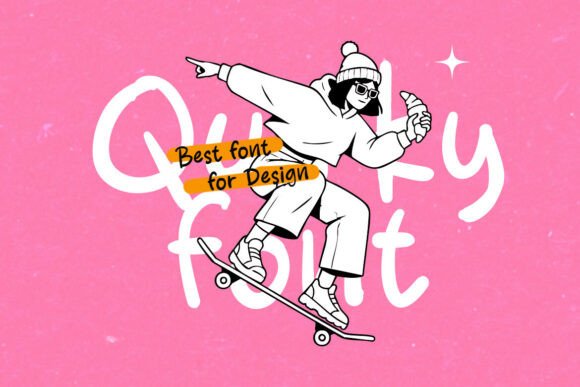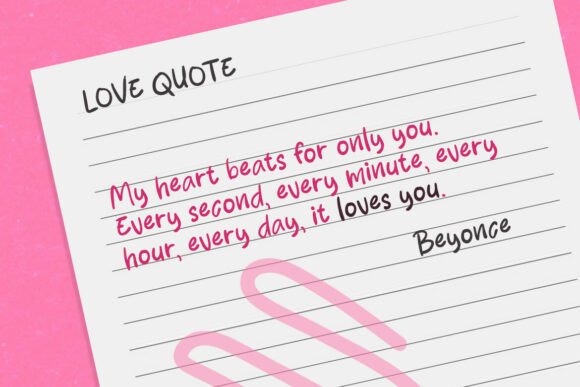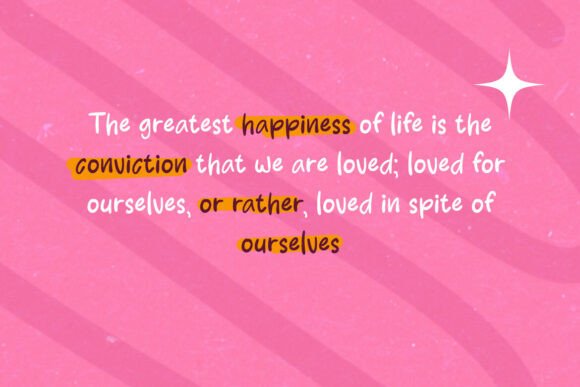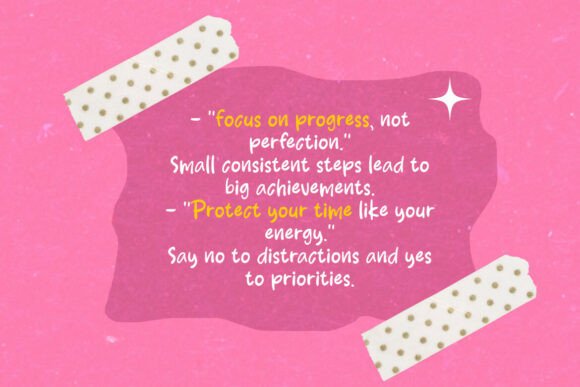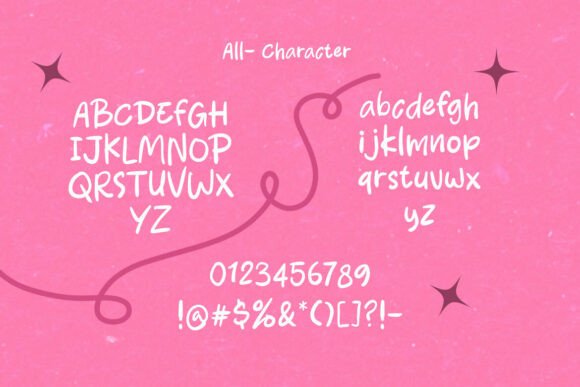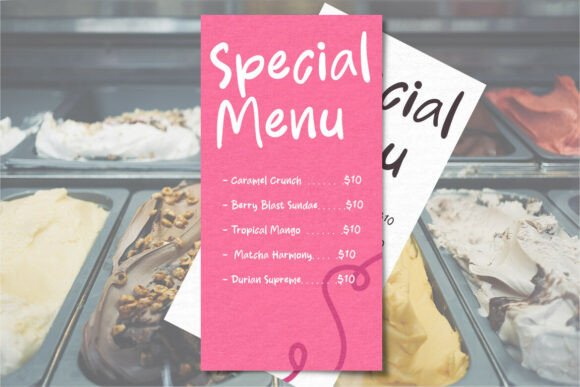
Embrace the Effortless Charm of Hand Duck Font: A Playful Handwritten Typeface for Modern Design
In the world of typography, few fonts manage to capture the essence of casual creativity and professional design as effortlessly as the Hand Duck font. This playful handwritten typeface has a unique ability to bridge the gap between doodling on a napkin and high-end design, making it an invaluable asset for designers and crafters alike. With its airy, tall letters and youthful spirit, Hand Duck exudes a sense of friendliness and approachability that is hard to resist.
The Distinctive Characteristics of Hand Duck Font
One of the standout features of the Hand Duck typeface is its thin strokes and slightly wobbly lines, which give it an authentic “marker-on-whiteboard” or “pen-on-paper” feel. This characteristic makes it perfect for brands aiming to appear friendly, accessible, and down-to-earth. Unlike more rigid and formal fonts, Hand Duck doesn’t try too hard; its magic lies in its effortless simplicity. It’s the kind of font that feels like it was written by a creative friend, making it instantly relatable and engaging.
When it comes to versatility, the Hand Duck typeface is akin to a Swiss Army knife for modern designers. Its adaptability makes it suitable for a wide range of applications, from personal projects to professional endeavors. For instance, it’s the perfect font for a personal diary or a lifestyle blog, where a relaxed and casual tone is essential. The font’s playful nature also makes it an excellent choice for quote graphics on social media, where it can help increase engagement and make content more shareable.
Pairing Hand Duck with Design Elements
To maximize the impact of the Hand Duck font, designers often pair it with complementary design elements. Soft pastels and hand-drawn icons can enhance its playful aesthetic, creating a cohesive and visually appealing design. For example, a lifestyle blog focusing on wellness and self-care could use Hand Duck as its primary font, paired with soothing pastel colors and simple illustrations to create a warm and inviting atmosphere. Similarly, organic food packaging could benefit from the use of Hand Duck, as it conveys a sense of naturalness and authenticity that aligns well with the brand’s values.
Hand Duck in Practice
The applications of Hand Duck are vast and varied. Here are a few examples of how this versatile font can be used in real-world design projects:
- Personal Diaries and Journals: The relaxed and casual vibe of Hand Duck makes it an ideal choice for personal diaries and journals. It adds a touch of personality to written content, making the experience more enjoyable and personal.
- Lifestyle Blogs: For bloggers focusing on lifestyle, wellness, or self-care, Hand Duck can help set the right tone. Its friendly and approachable nature makes readers feel like they’re reading advice from a friend.
- Quote Graphics: Social media platforms are flooded with inspirational quotes, and using Hand Duck can make yours stand out. Its playful yet elegant appearance is perfect for creating engaging and shareable content.
- Organic Food Packaging: Brands that focus on organic and natural products can benefit greatly from using Hand Duck. The font’s down-to-earth feel aligns well with the values of environmentally conscious consumers.
The Hand Duck font is a remarkable addition to the world of typography, offering a unique blend of playfulness and professionalism. Its effortless charm and versatile nature make it an excellent choice for designers and crafters looking to add a personal touch to their projects. Whether you’re working on a personal diary, a lifestyle blog, or even organic food packaging, Hand Duck has the potential to elevate your design and make it more engaging. By embracing the simplicity and friendliness of Hand Duck, designers can create visually appealing and relatable content that resonates with their audience.
In a digital age where fonts can make or break the aesthetic of a project, Hand Duck stands out as a beacon of creativity and approachability. It’s not just a font; it’s a design statement that says, “I’m friendly, I’m approachable, and I care about being genuine.” For those looking to make a lasting impression with their design, Hand Duck is undoubtedly a font worth exploring.